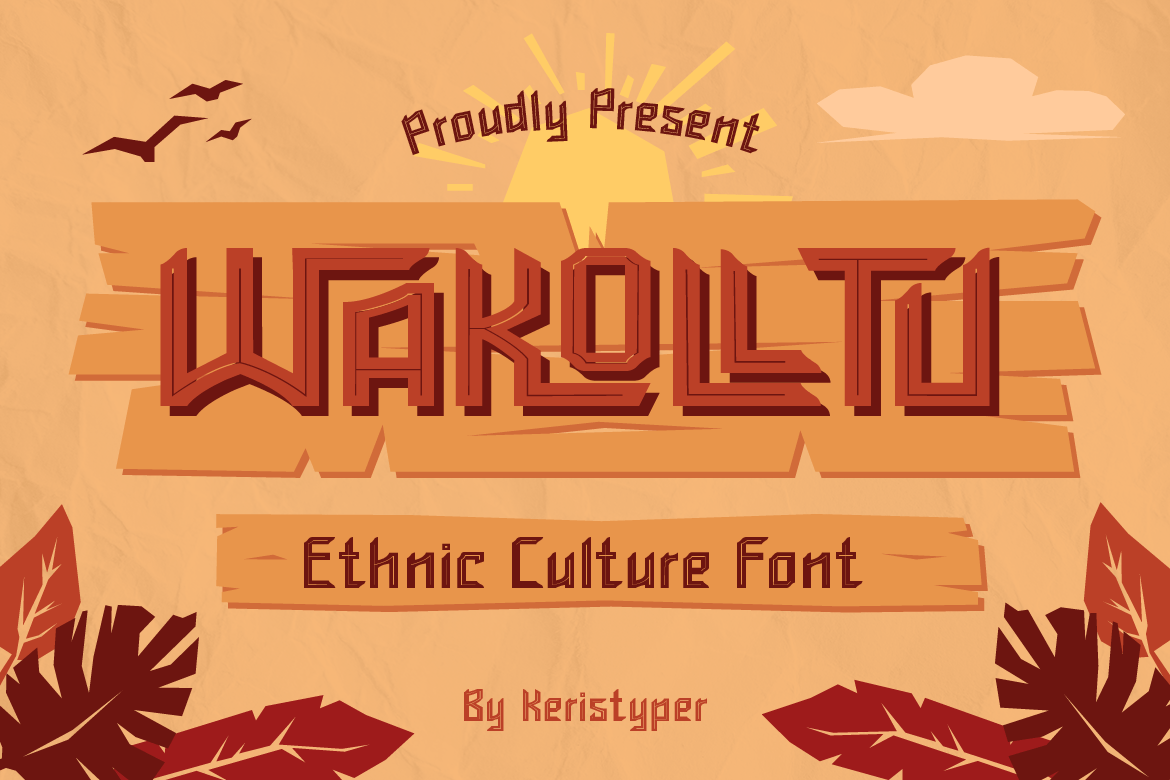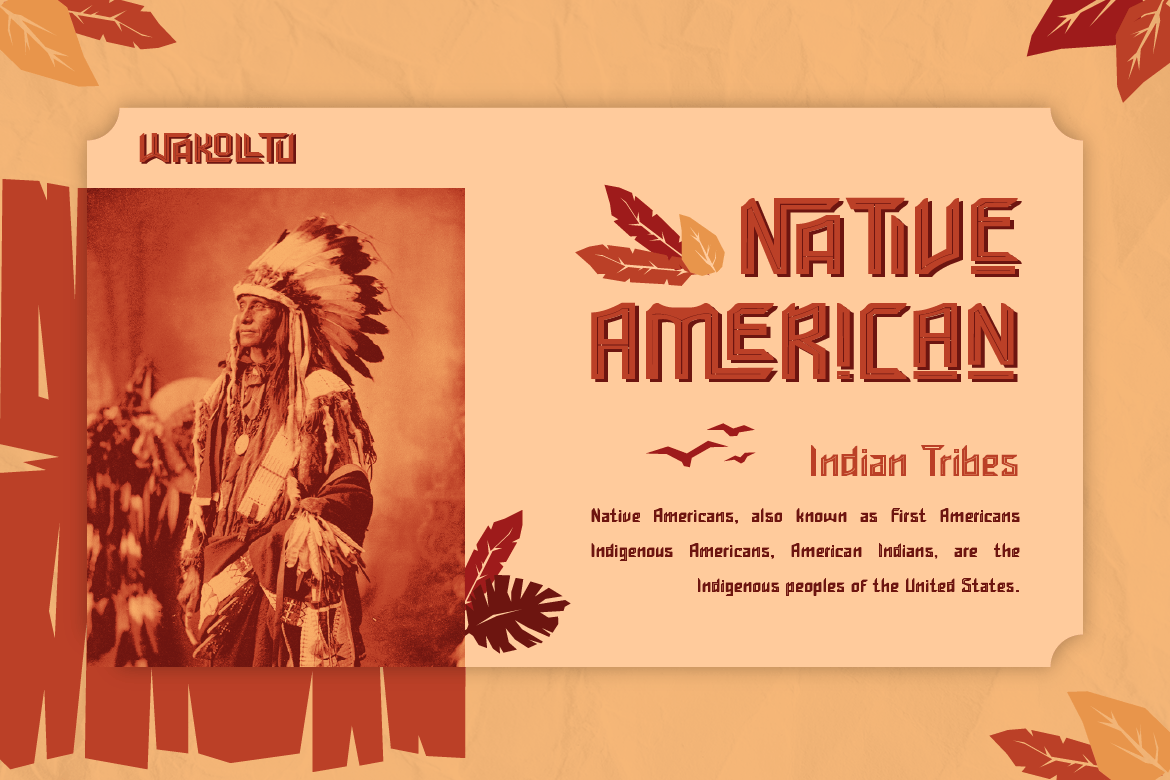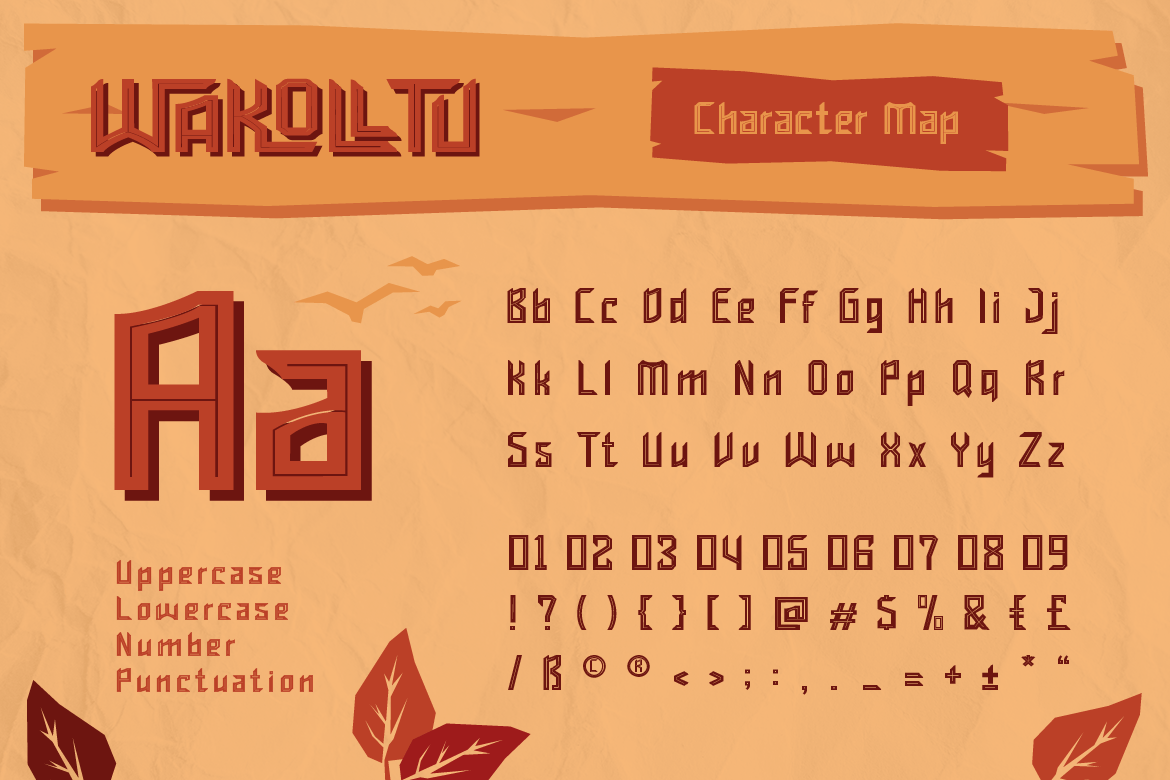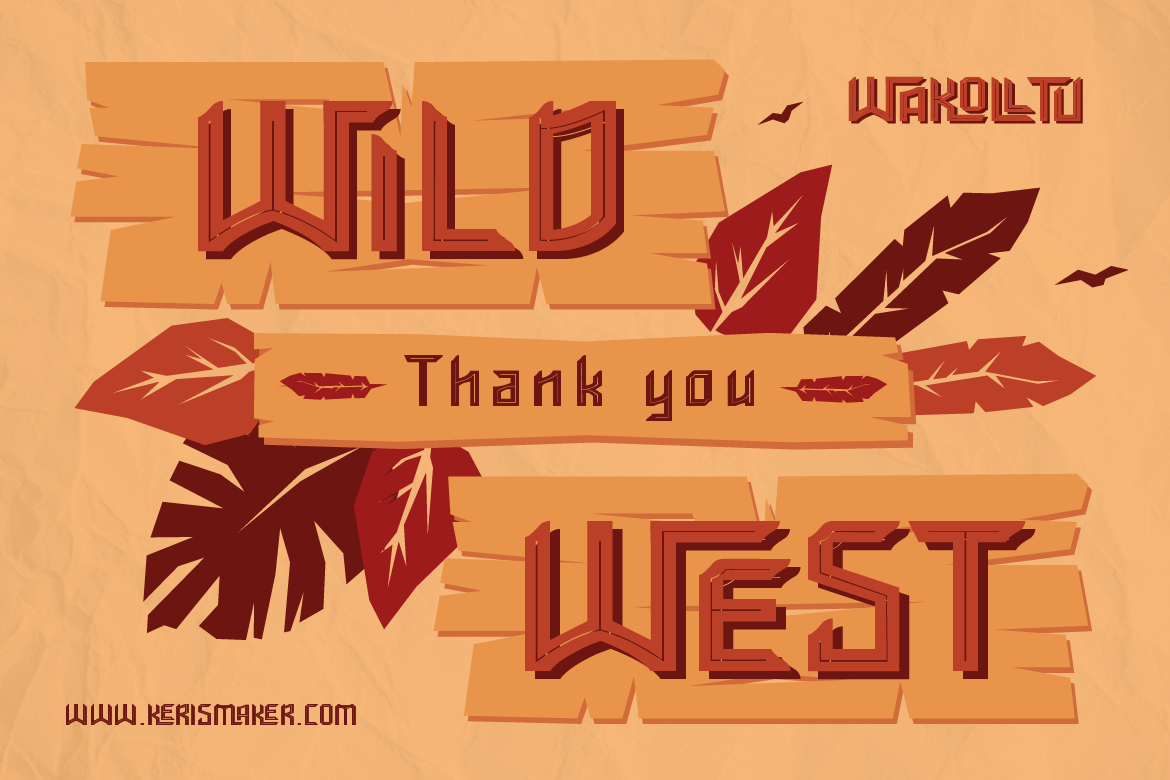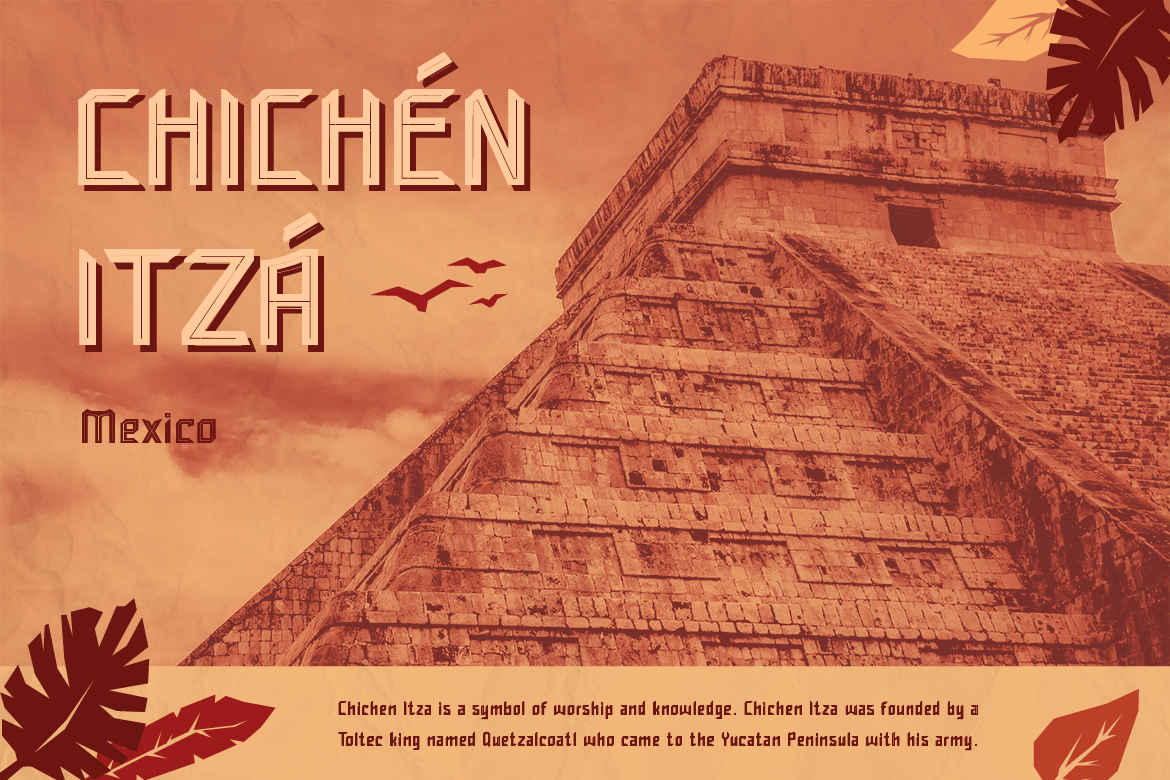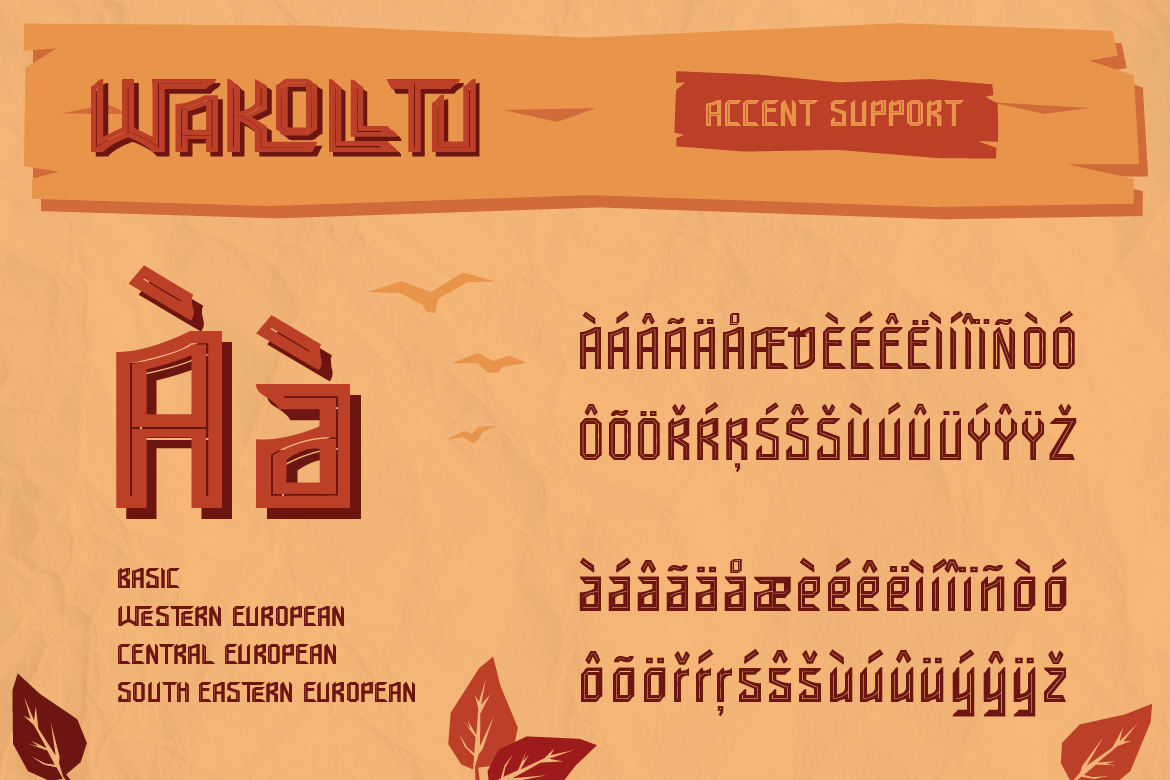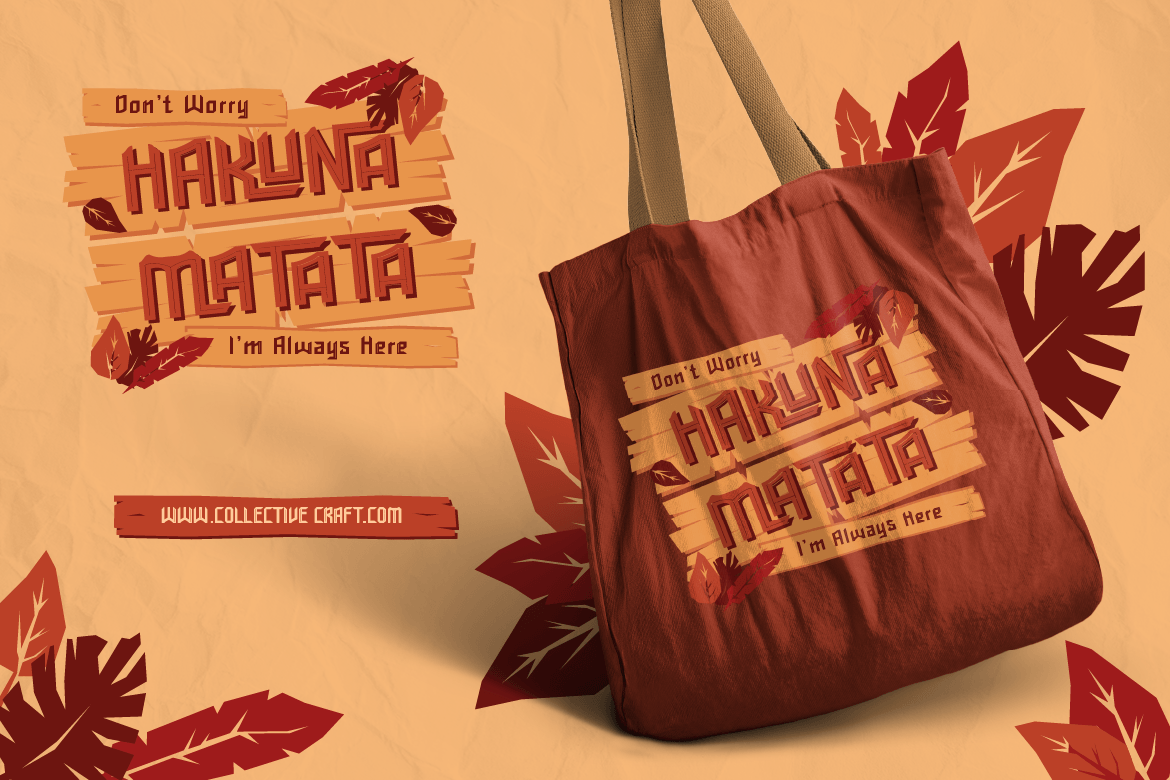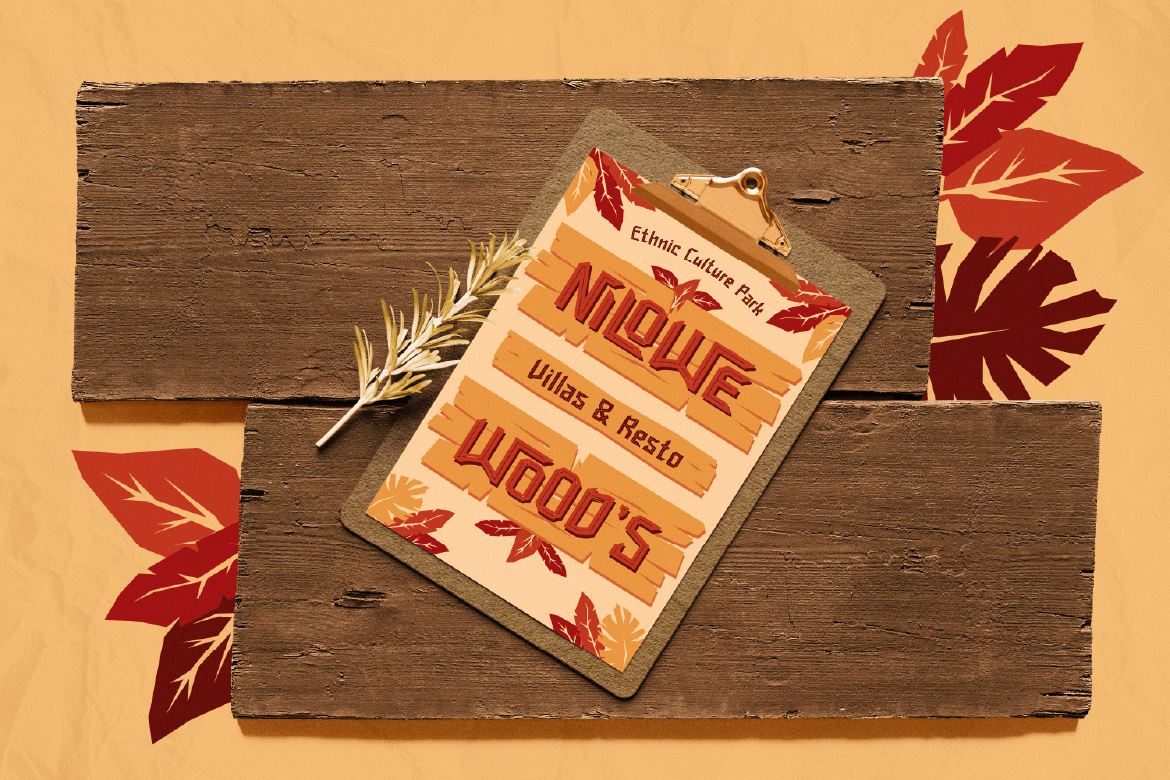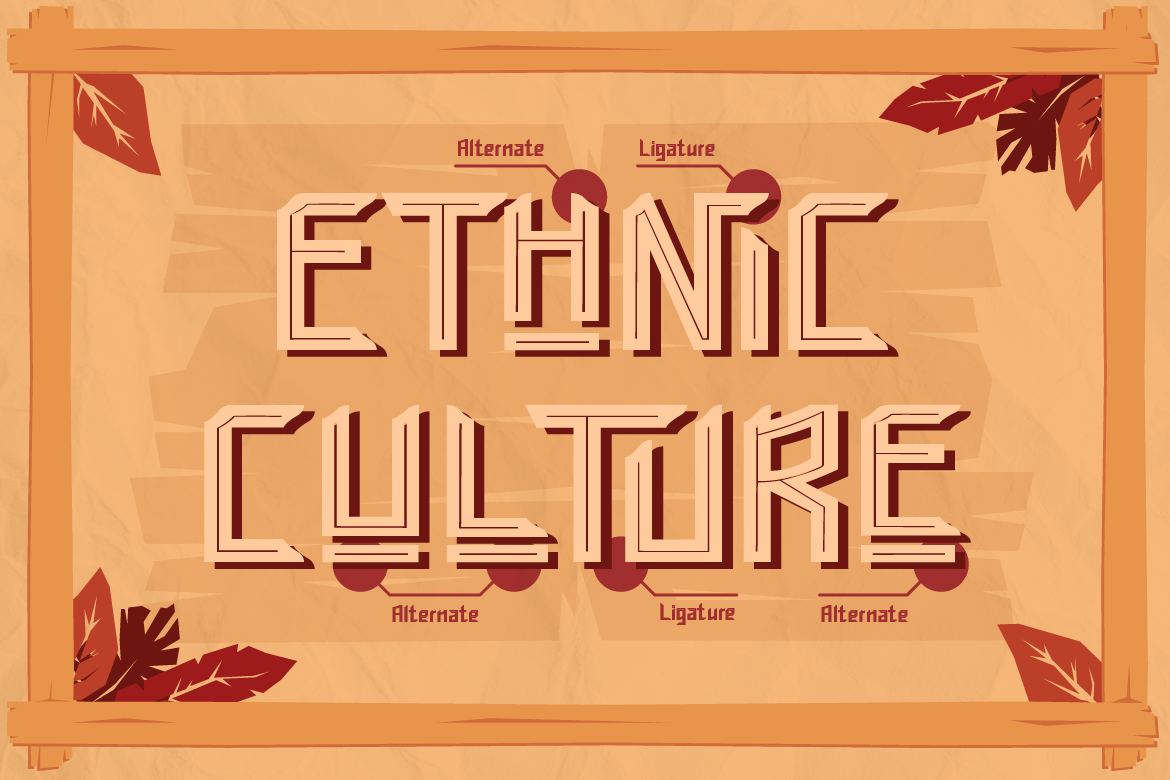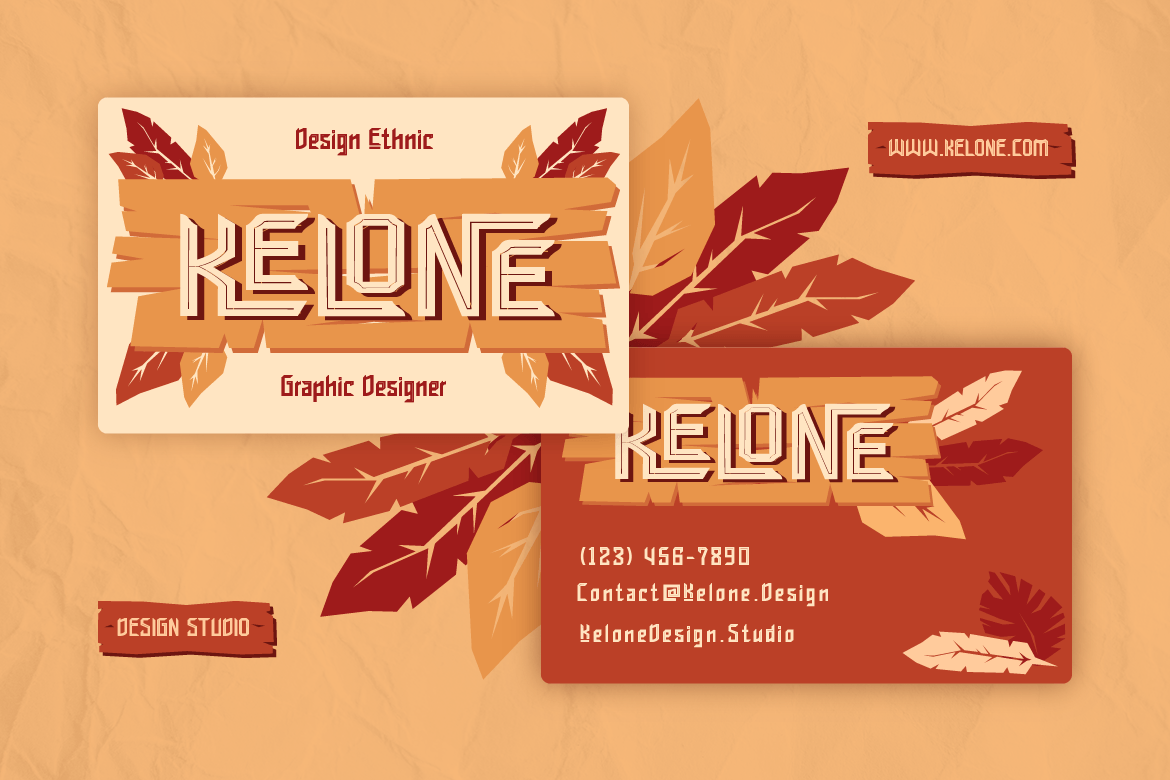
Wakolltu Font
Wakolltu is ethnic culture font. it has a fun character and display typeface. This font is good for logo design, Social media, Movie Titles, Books Titles, short text even long text letters, and good for your secondary text font with sans or serif.
- Standard Uppercase & Lowercase
- Multilingual : ä ö ü Ä Ö Ü ß ¿ ¡
- Alternate & Ligature